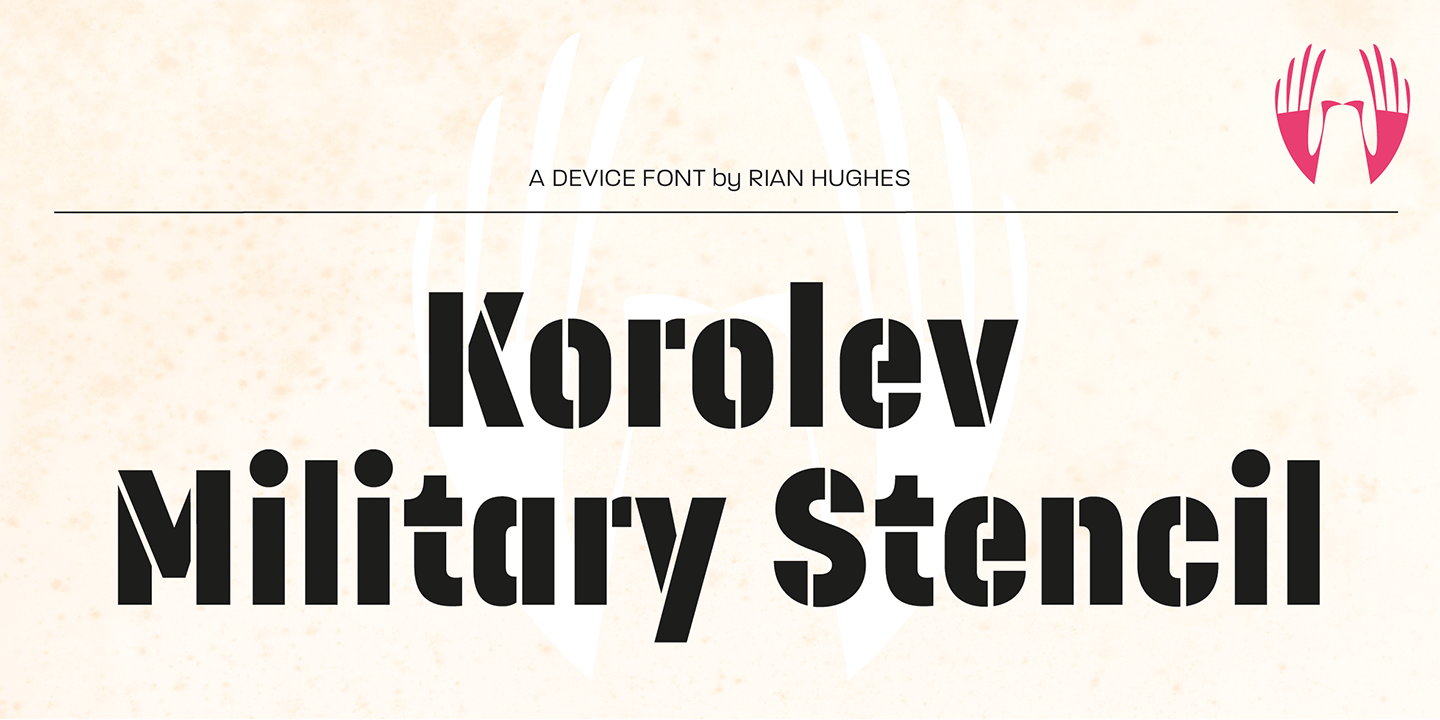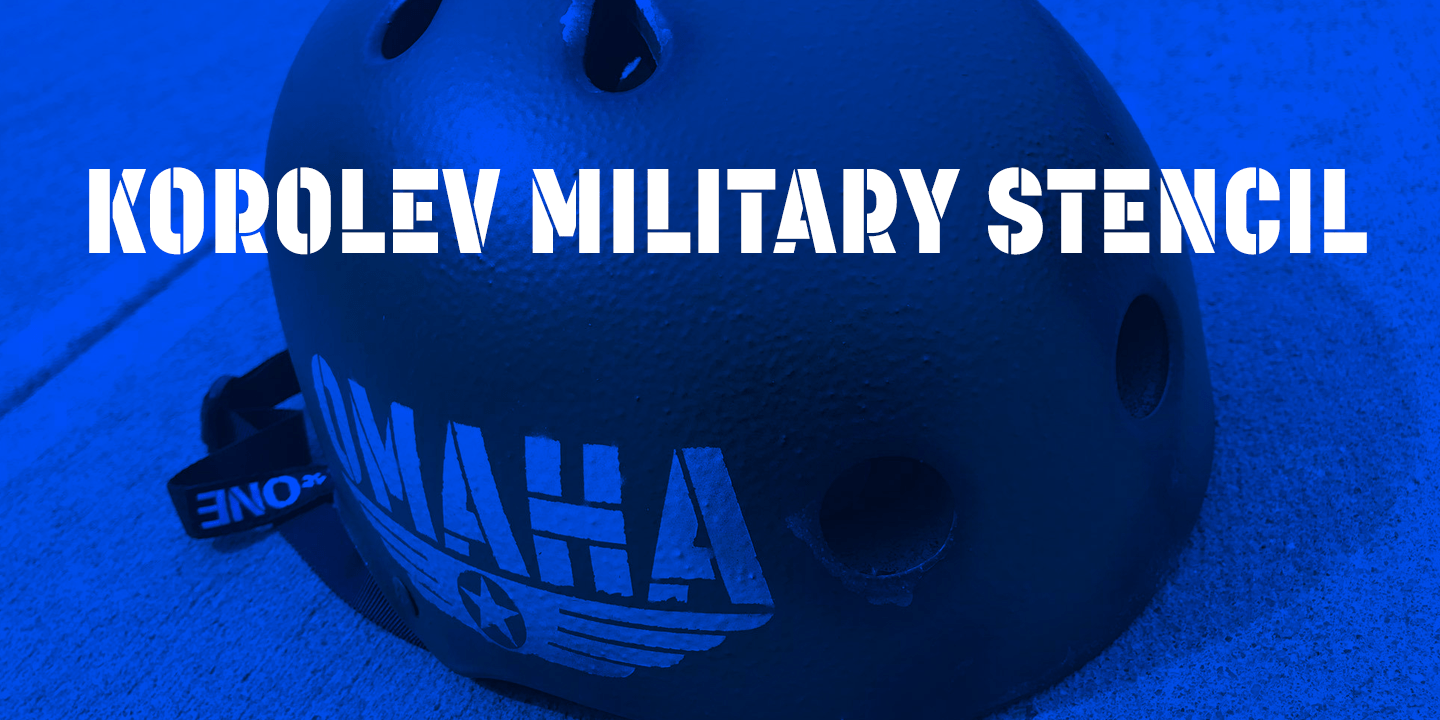
Korolev Military Stencil
Font Family by Device
A stencil variant of last year's bestselling Device font family, Korolev.
Named after Sergei Korolev, father of Soviet astronautics, and based on signs from the Red Army parade of 1932.